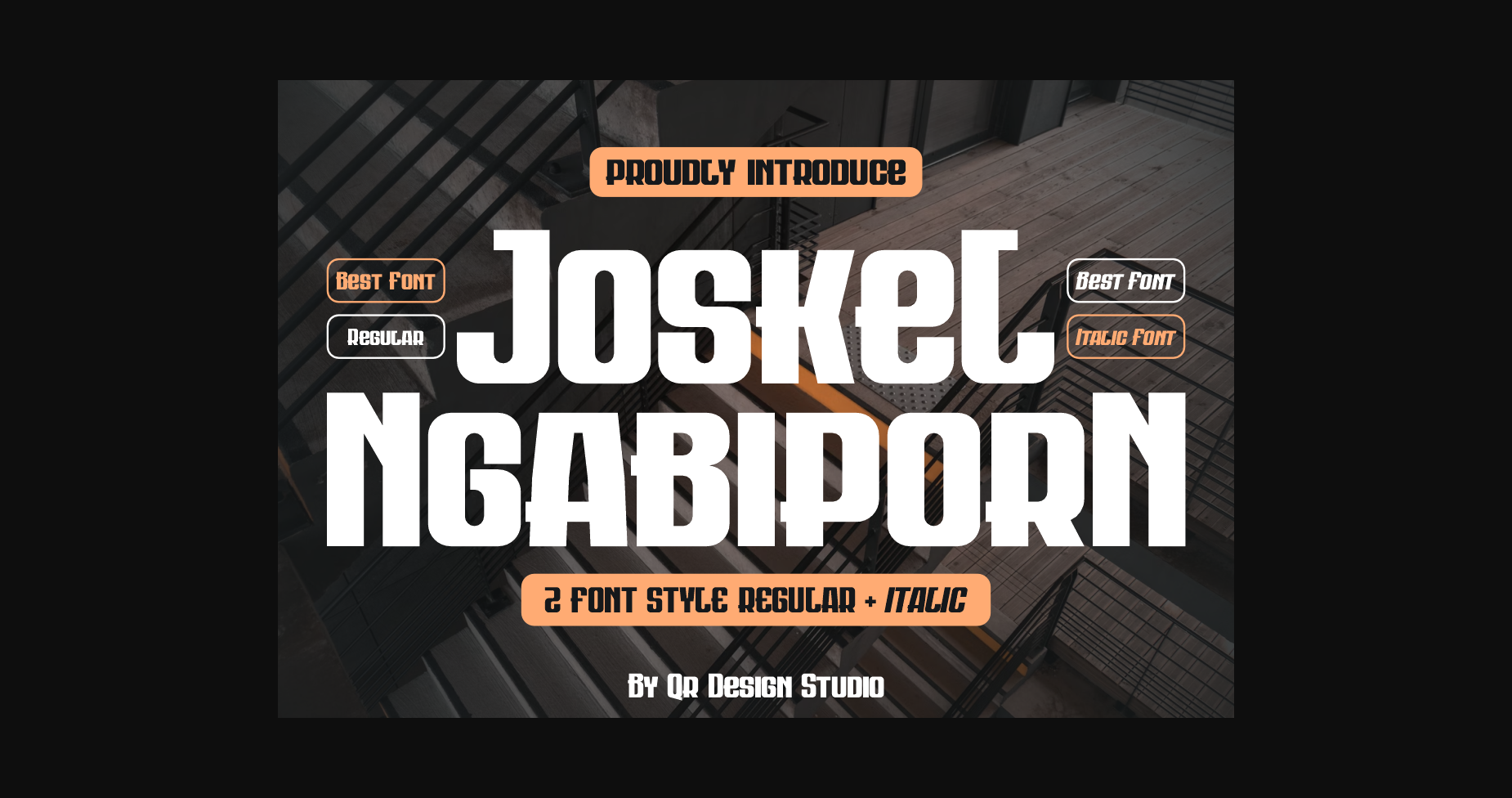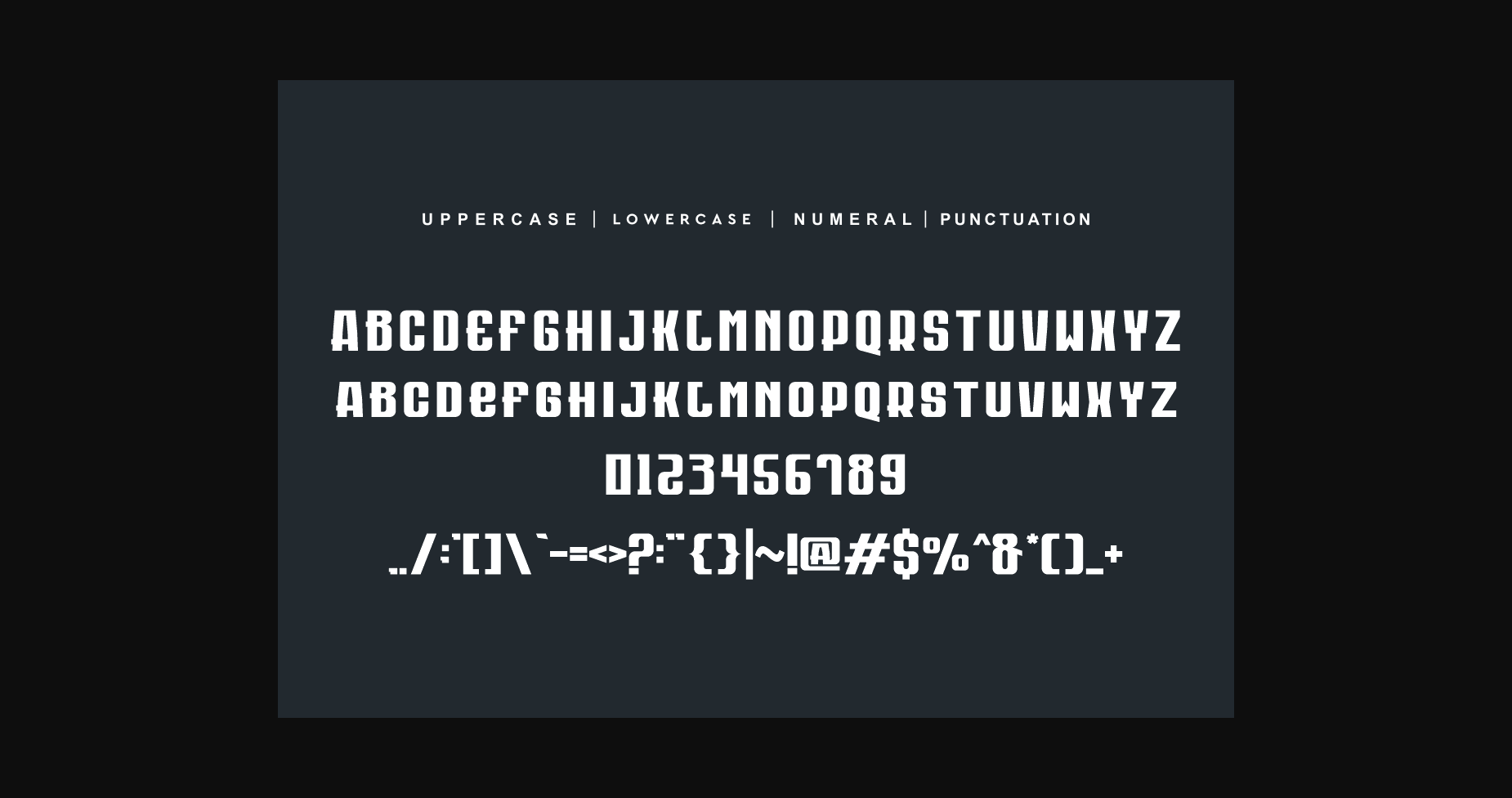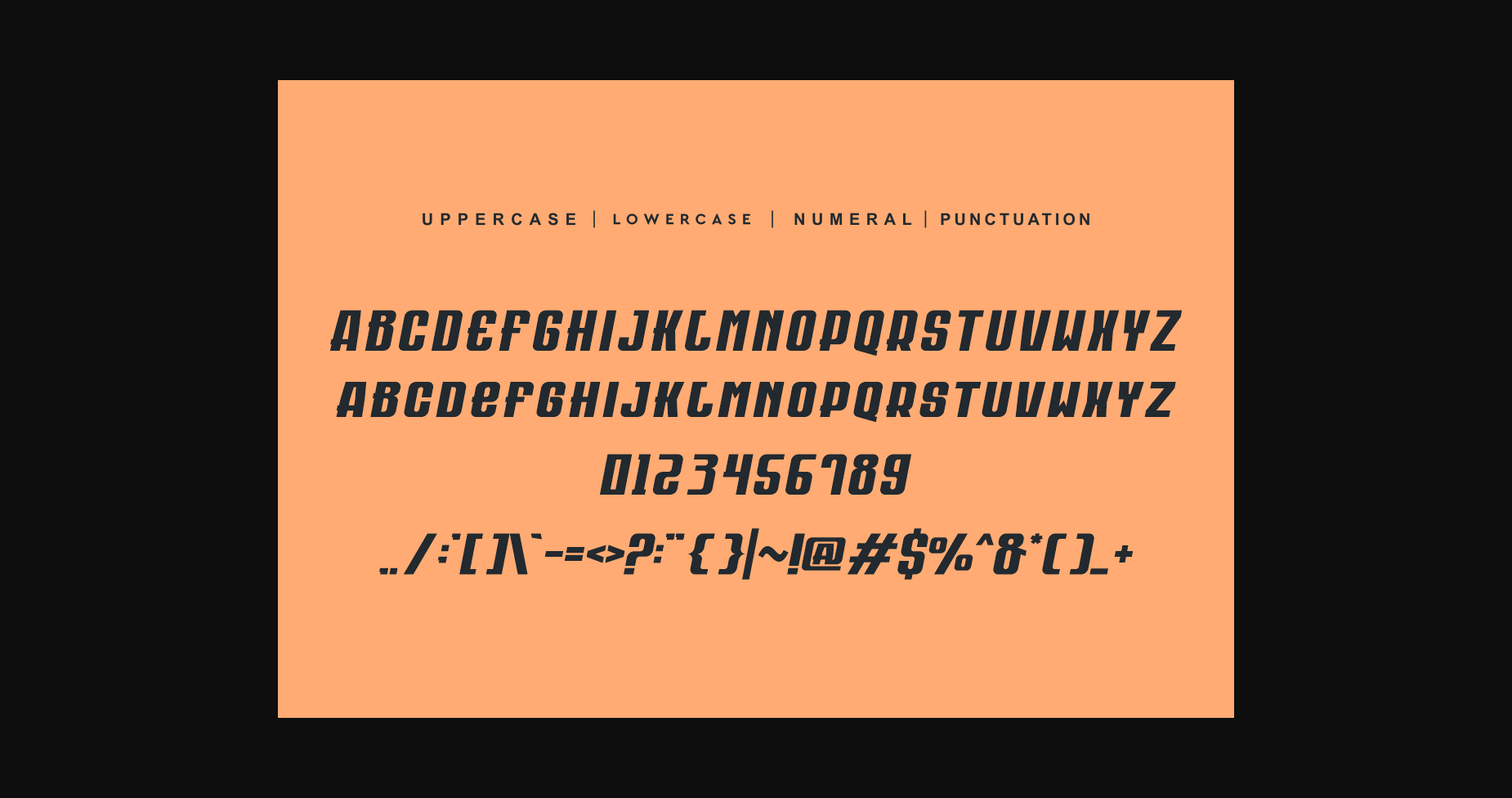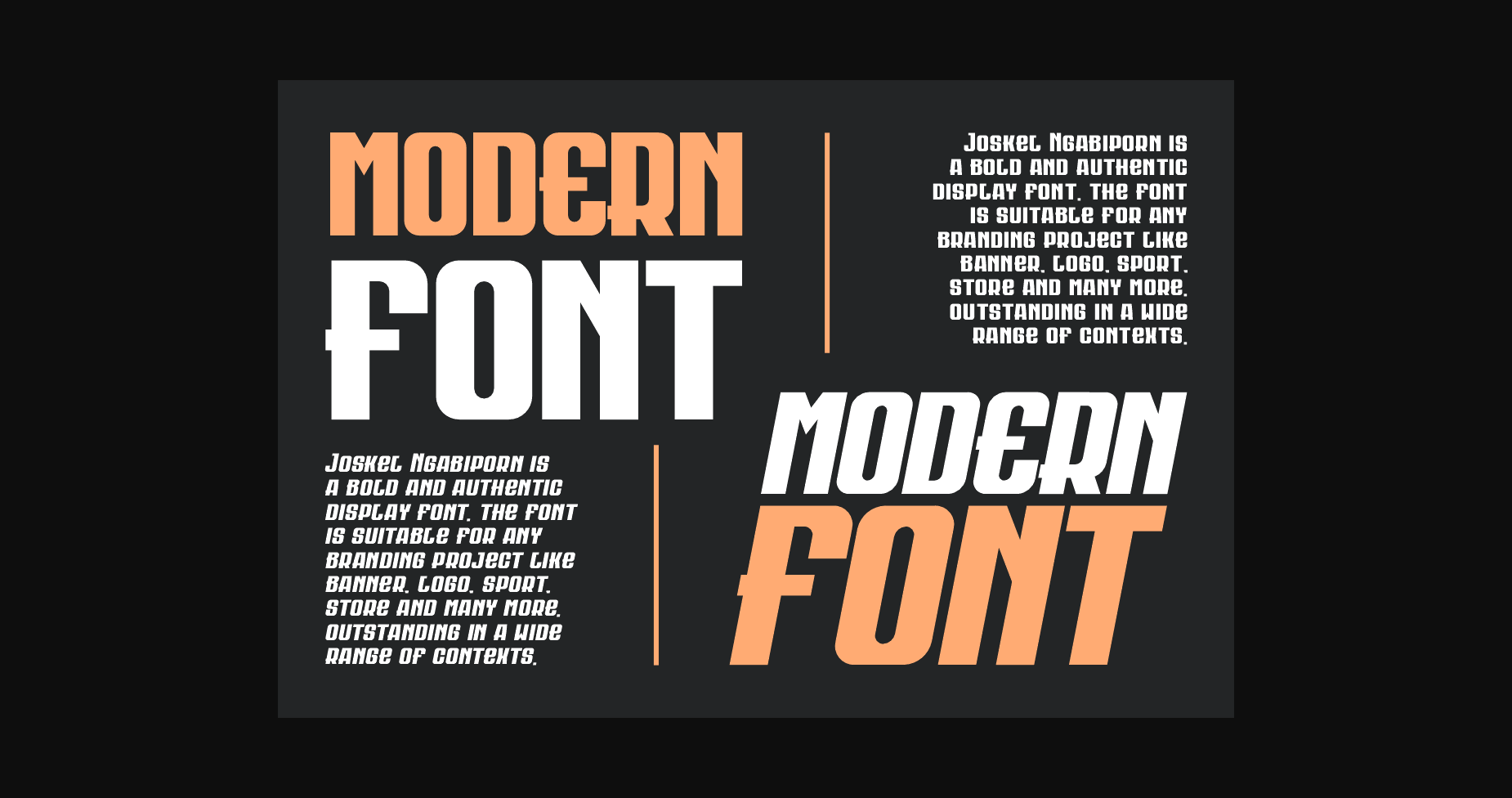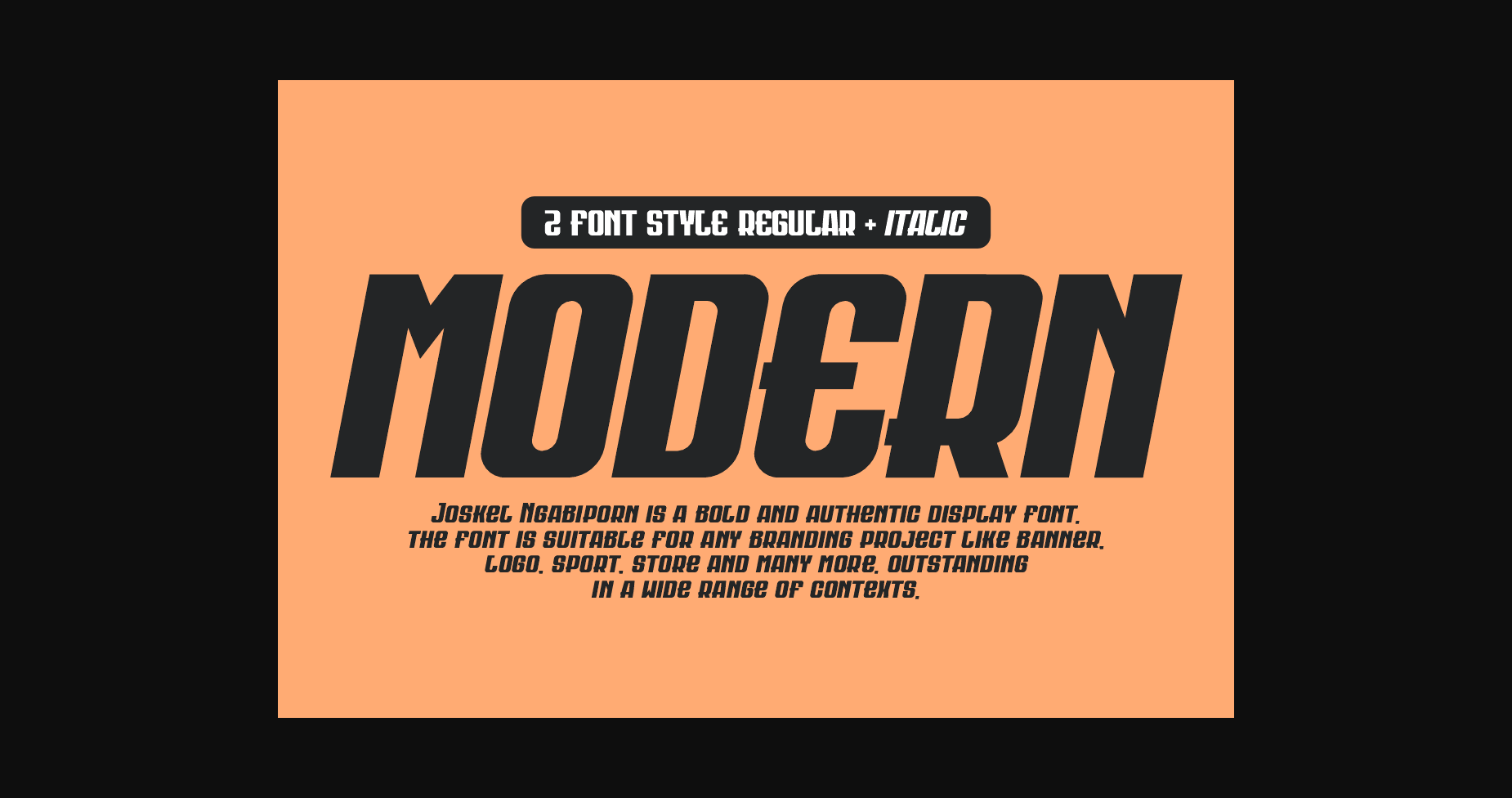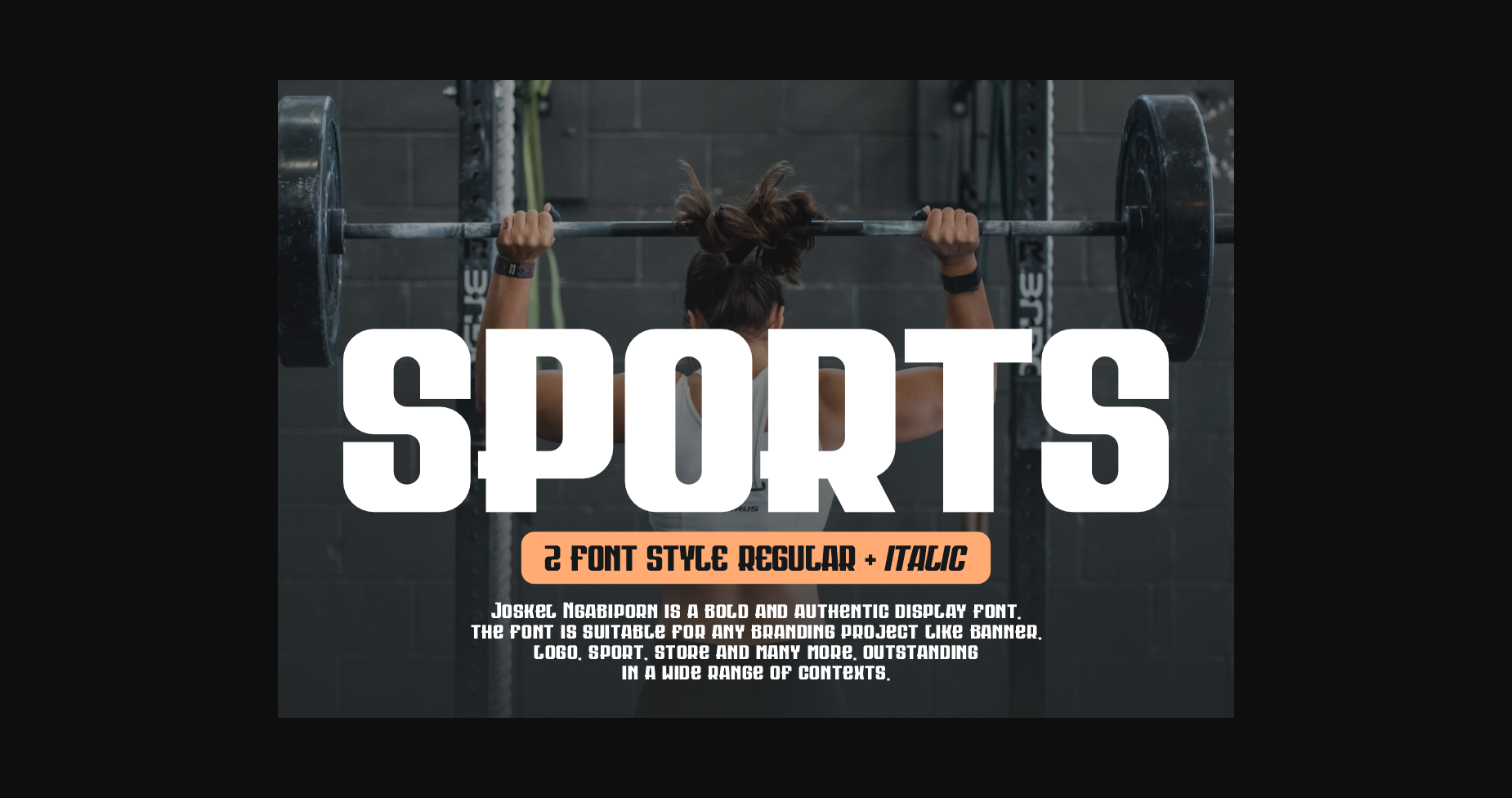
About Joskel Ngabiporn Font
Introducing Joskel Ngabiporn Sans Serif, a modern and versatile typeface that combines elegance and readability. With its clean lines and balanced proportions, this font is perfect for various design projects, from branding to editorial layouts. Joskel Ngabiporn Sans Serif brings a touch of sophistication to your typography, making it a reliable choice for conveying a professional and contemporary aesthetic.